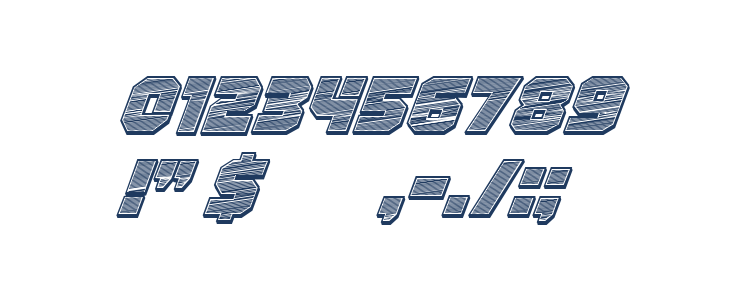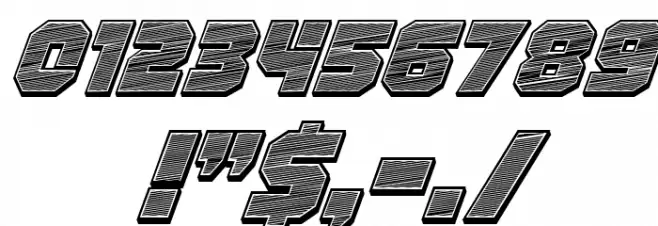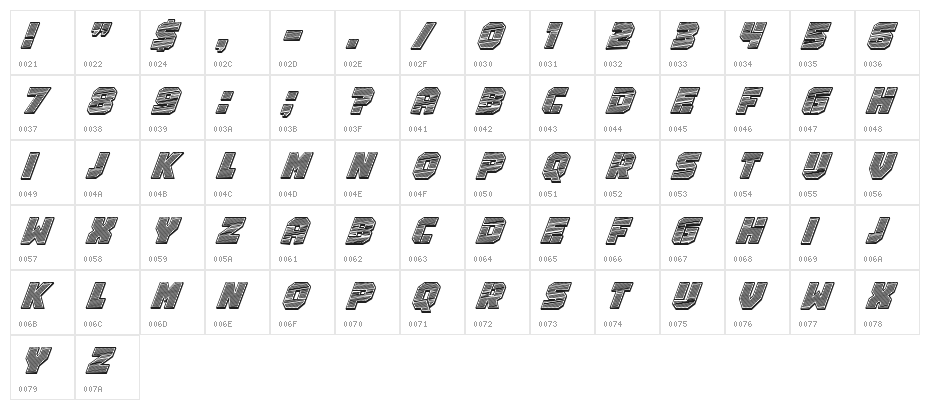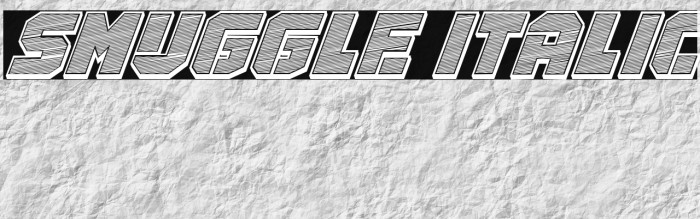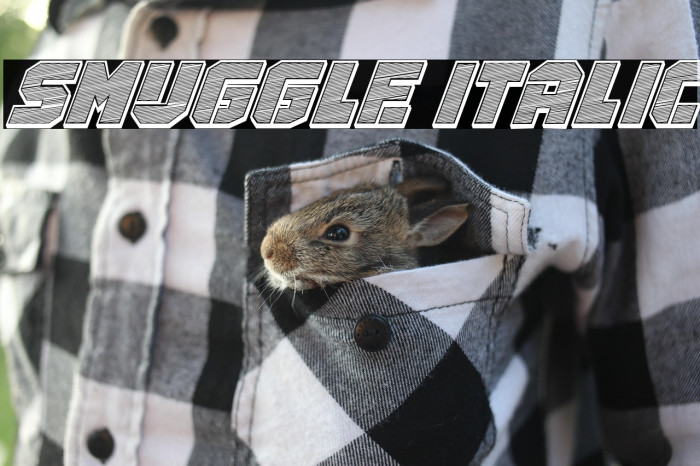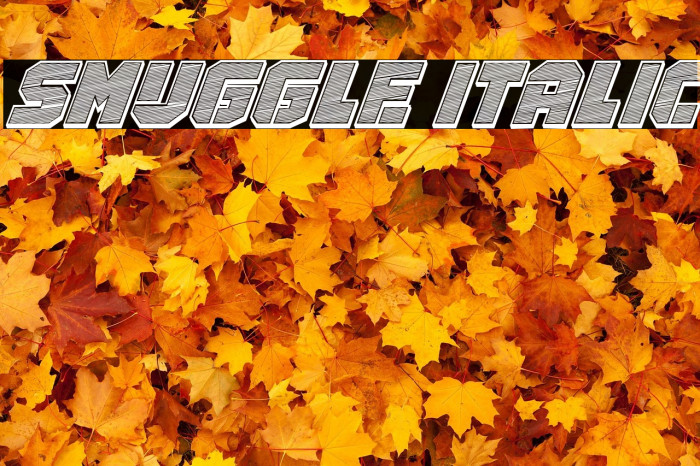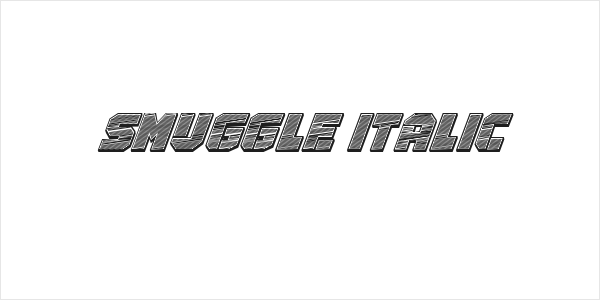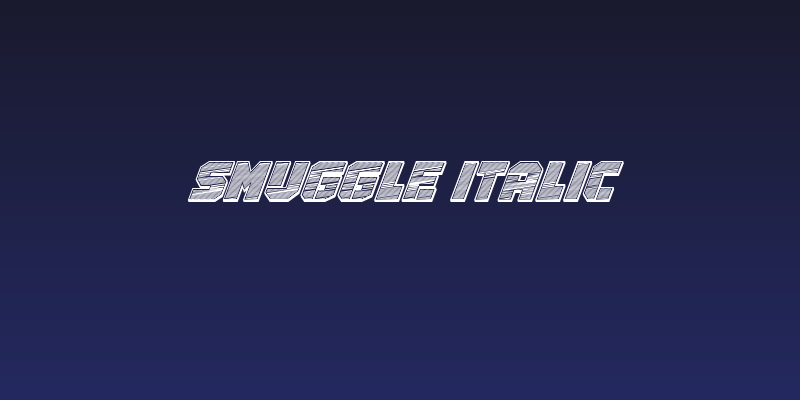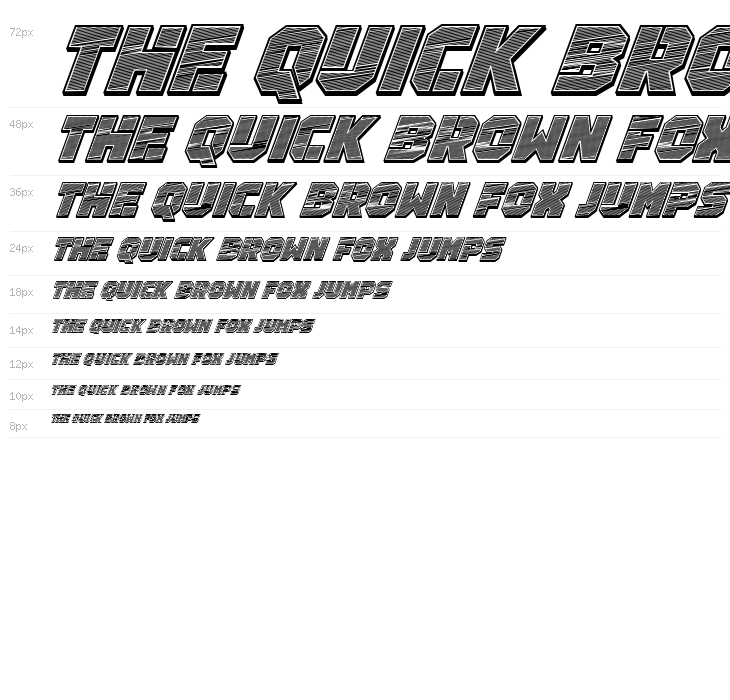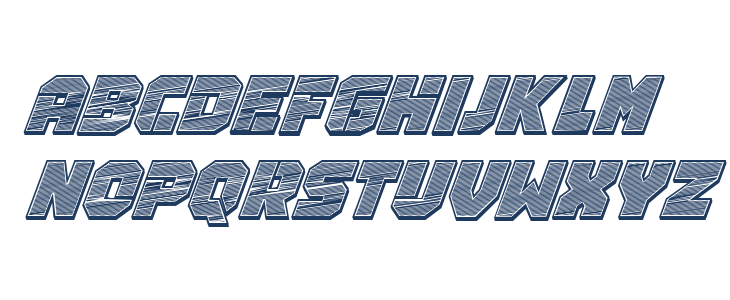
Smuggle Italic Font
Smuggle Italic Description
This font features a bold, italicized style with a distinct 3D effect created by diagonal lines running through each character. The letters are uppercase and lowercase, with numbers and special characters included. The design is highly decorative, making it stand out with its unique, layered appearance. The strokes are thick, providing a strong visual impact, while the slanted orientation adds a dynamic feel. The font's boldness and decorative nature make it suitable for attention-grabbing designs.
Proposed ProjectsIdeal for poster designs, branding projects, video game graphics, and any project requiring a striking, modern look.